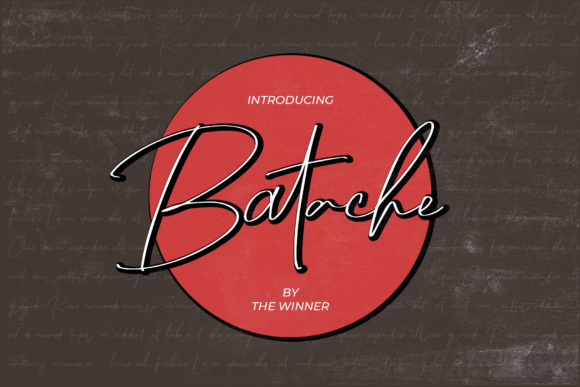
Introduction to Batache Font
Batache is an authentic, modern and thin lettered script font.
Its informal style and casual vibe will make this font a go-to choice for each of the creations that require a relaxed touch .
Key Features of Batache Font